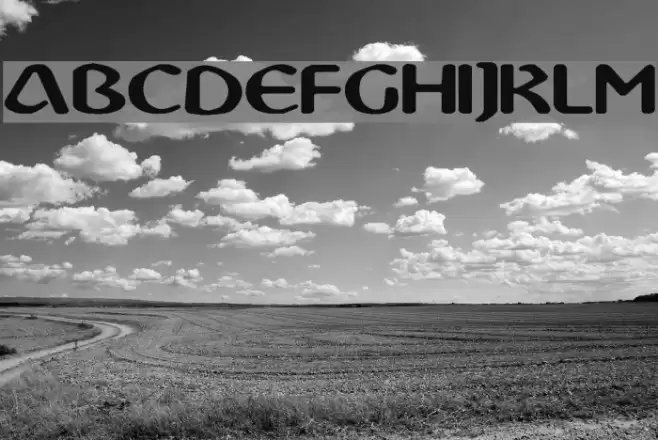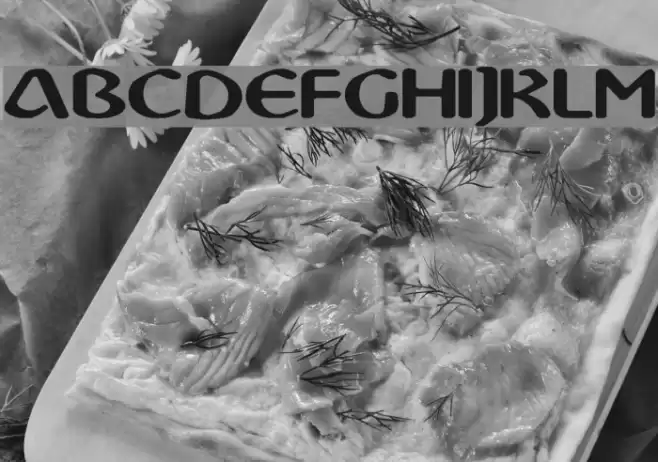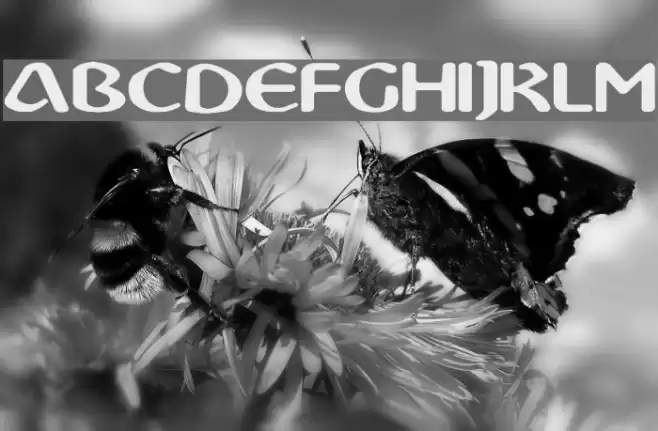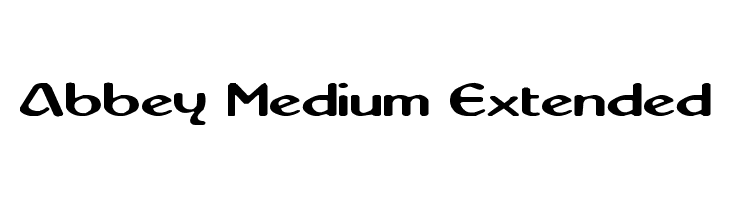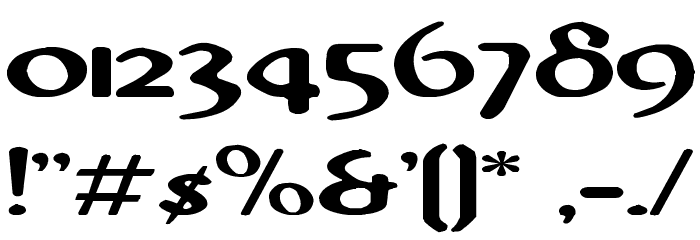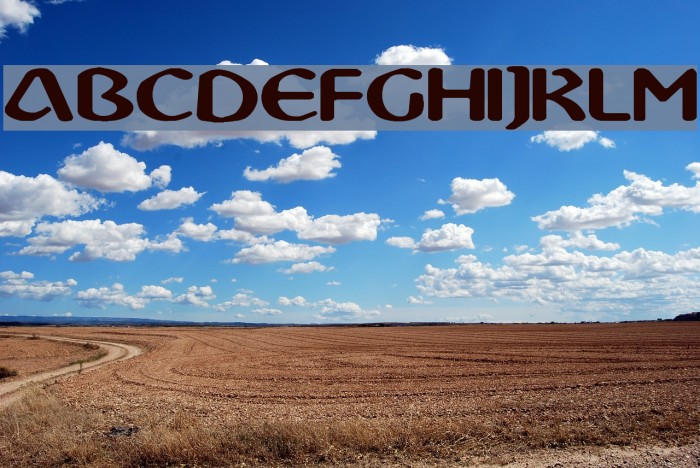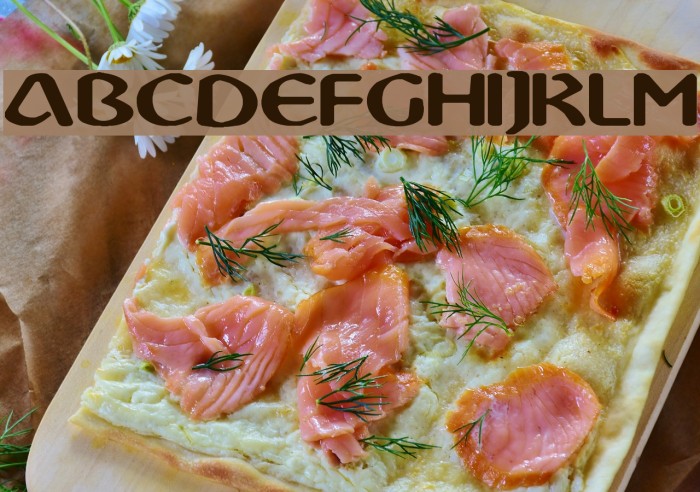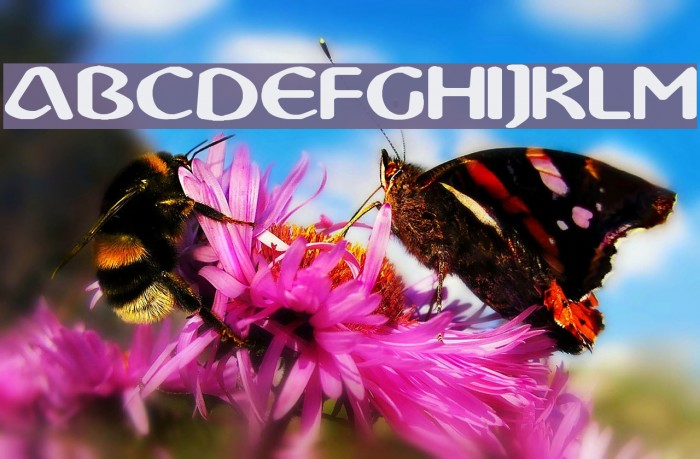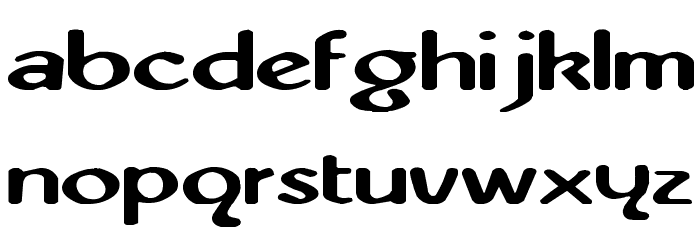
Abbey Medium Extended Font
Abbey Medium Extended Description
This font features a bold and dynamic style with a strong presence. The characters are designed with a medium weight and extended width, offering a unique and modern look. The uppercase letters are bold and slightly rounded, while the lowercase letters maintain a consistent flow with smooth curves. Numbers are distinct and easy to read, with a playful yet structured appearance. Special characters are well-integrated, maintaining the overall aesthetic of the font. The font's design is suitable for making a statement, with its bold strokes and extended form, making it ideal for headlines and attention-grabbing text.
A bold, extended font with a modern and dynamic style from Decorative fonts.
- Proposed Projects: Ideal for branding, advertising, posters, and headlines where a strong visual impact is needed.
- Width: Expanded